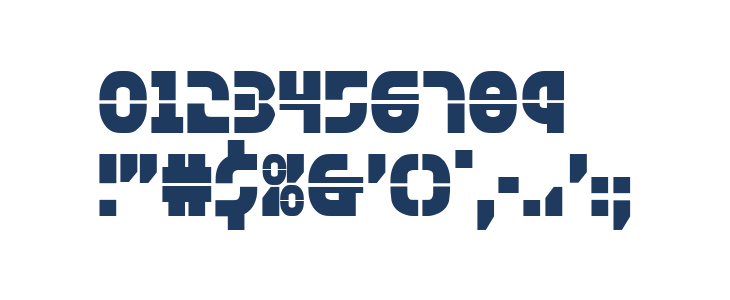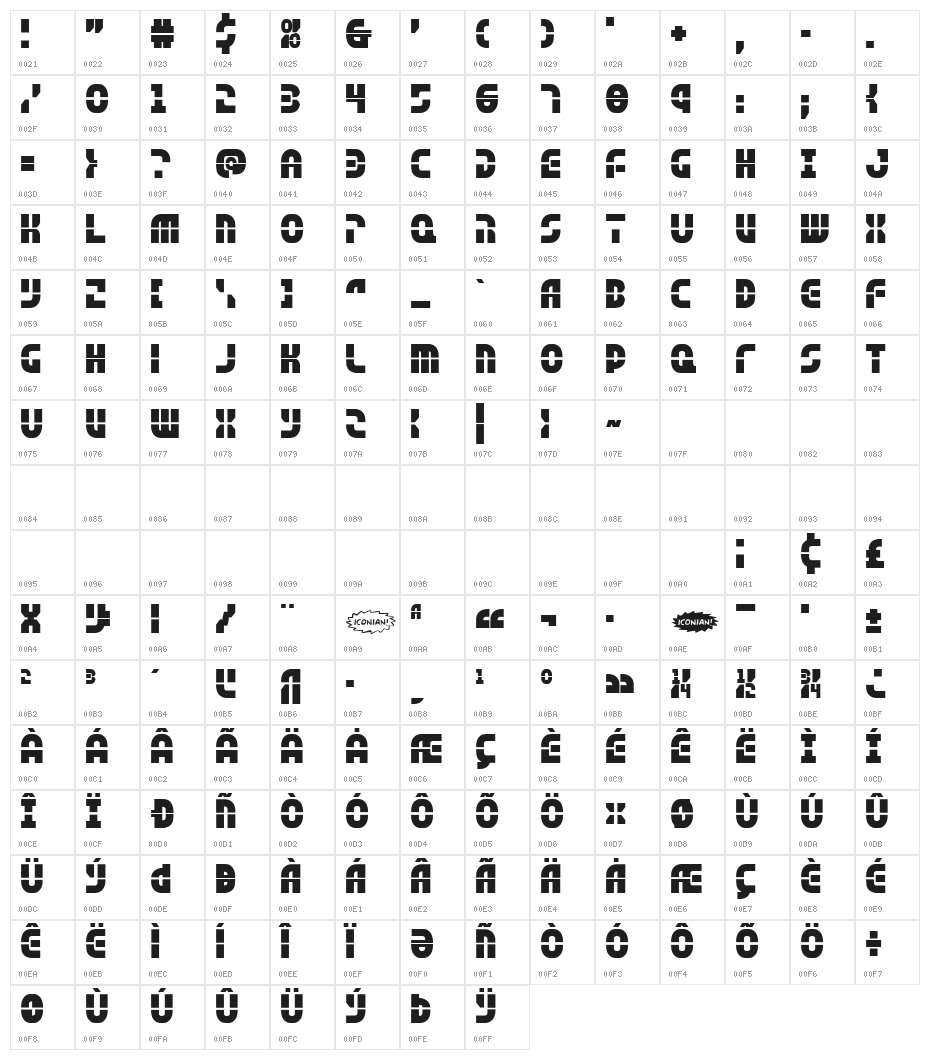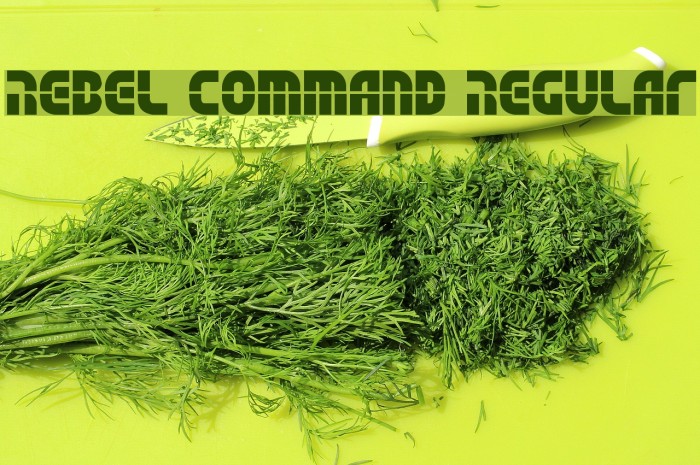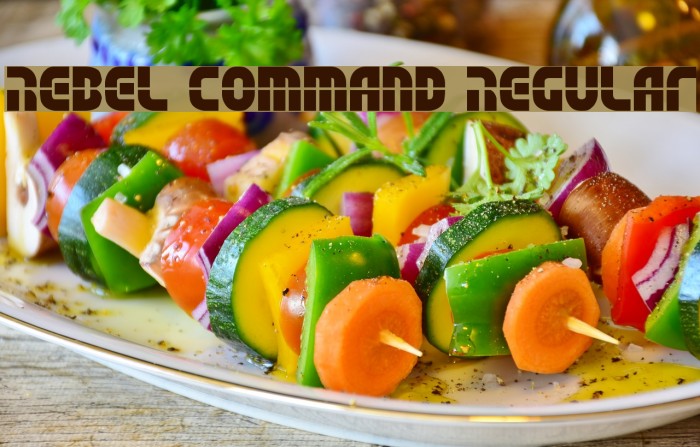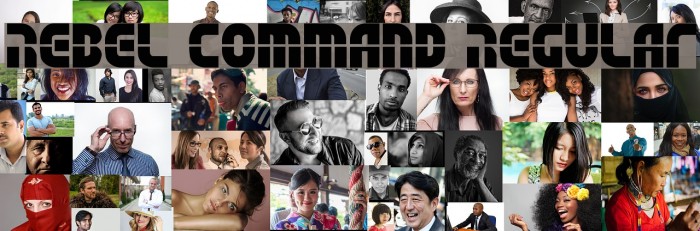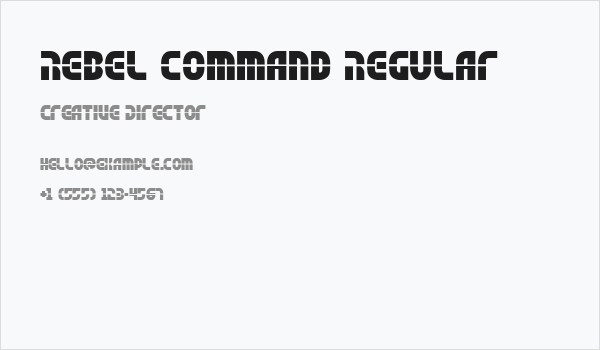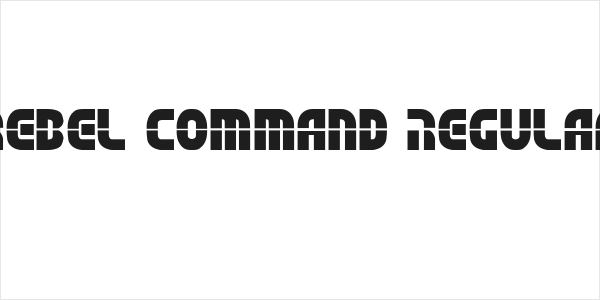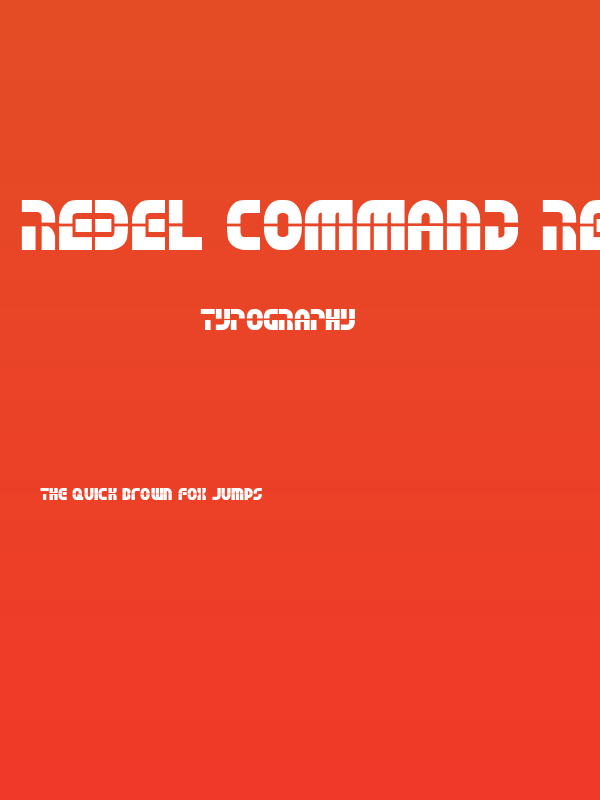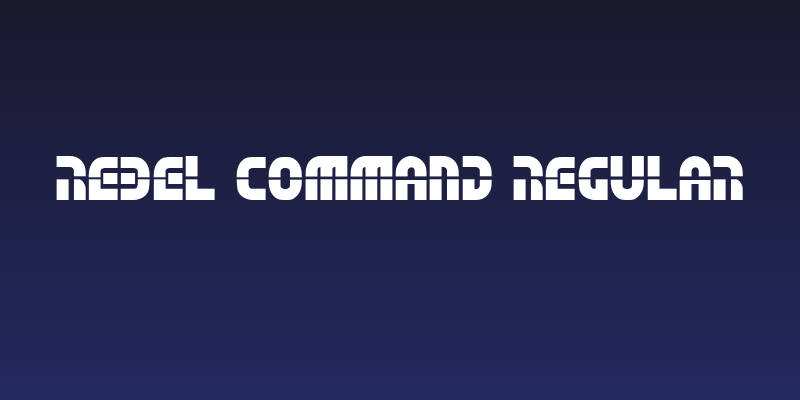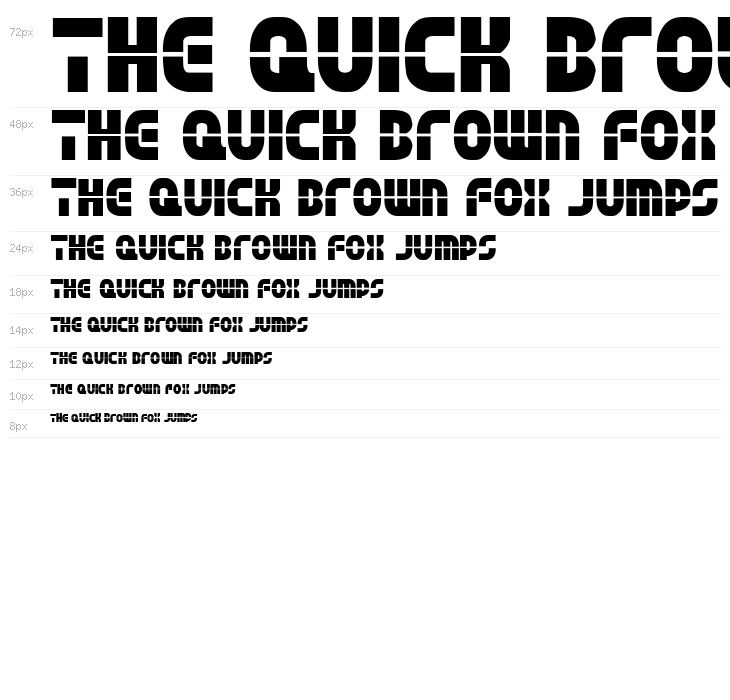
Rebel Command Regular Font
Rebel Command Regular Description
This font features a bold, futuristic design with a distinct geometric style. Each character is constructed with solid, block-like shapes that are segmented by horizontal lines, creating a unique, industrial look. The uppercase and lowercase letters maintain a consistent width, contributing to a cohesive and uniform appearance. The numbers and special characters follow the same design principles, ensuring visual harmony across all elements. This font's striking and unconventional style makes it ideal for projects that require a modern and edgy aesthetic.
| Overall Style | Futuristic, Industrial |
| Proposed Projects | Ideal for sci-fi themed designs, video game titles, tech branding, and modern posters. |